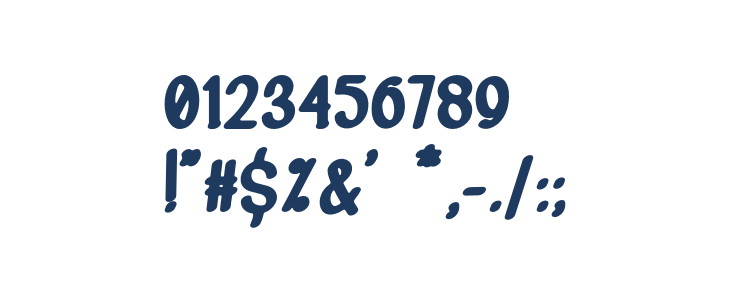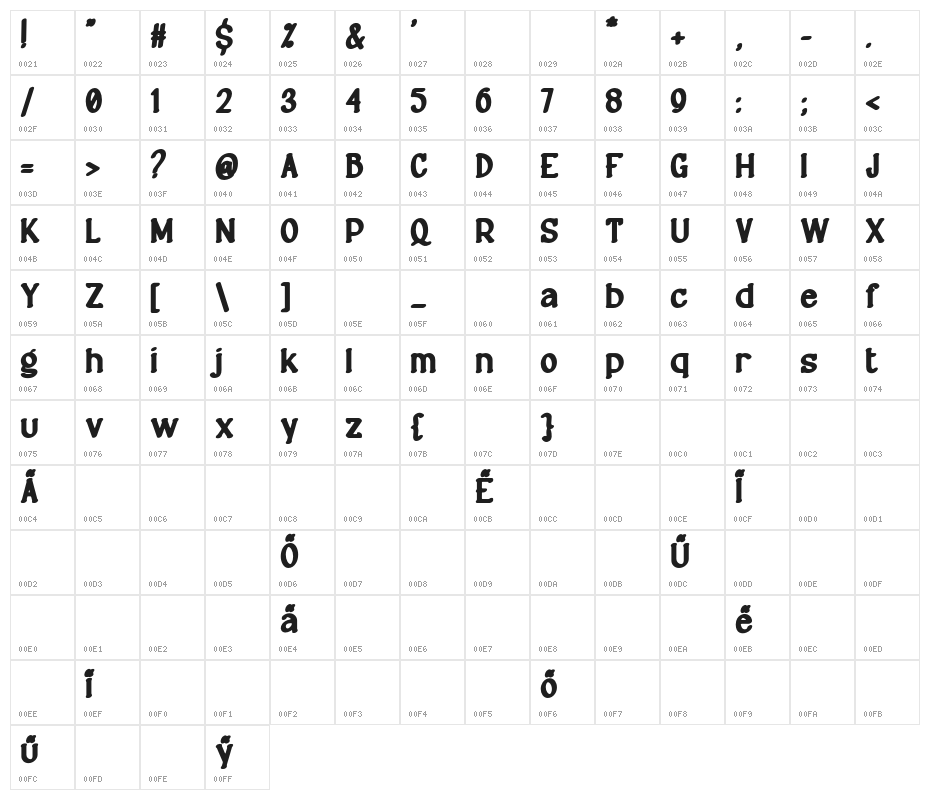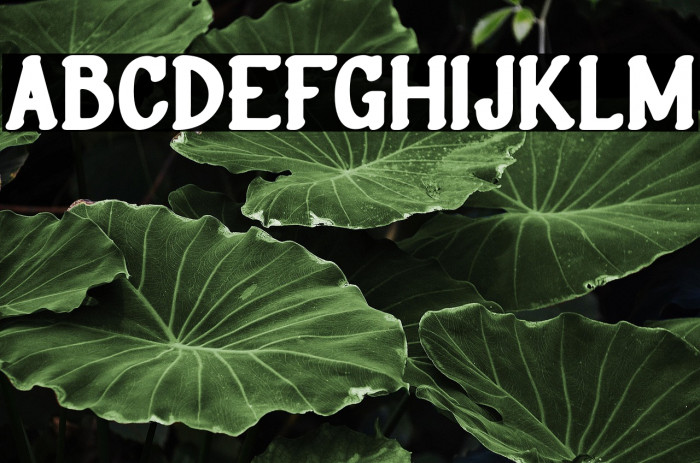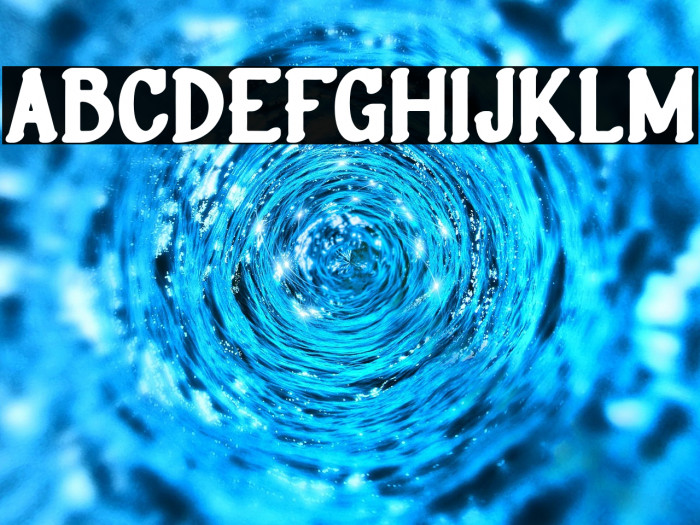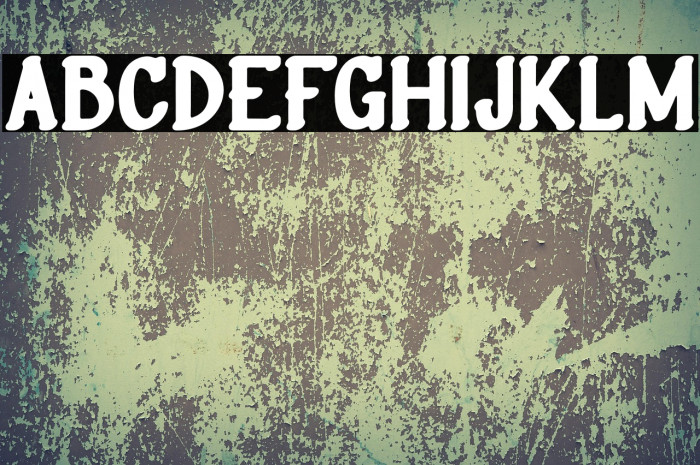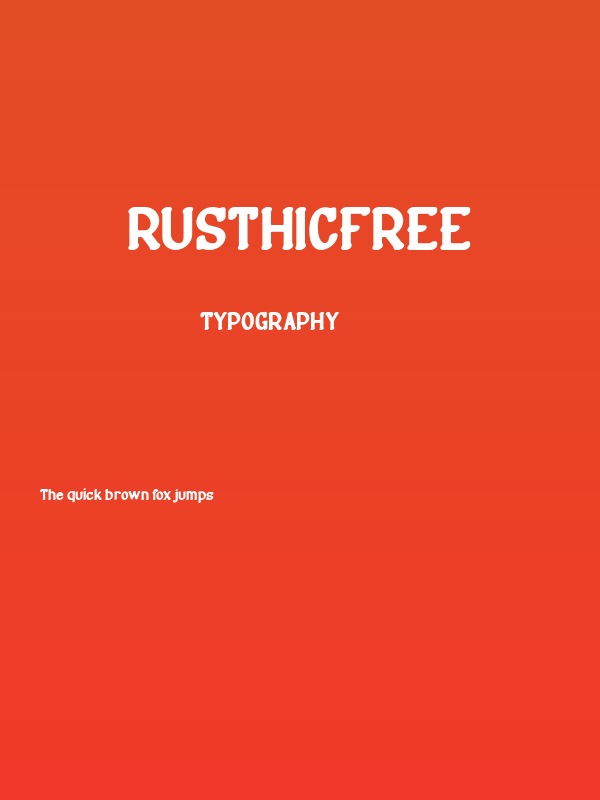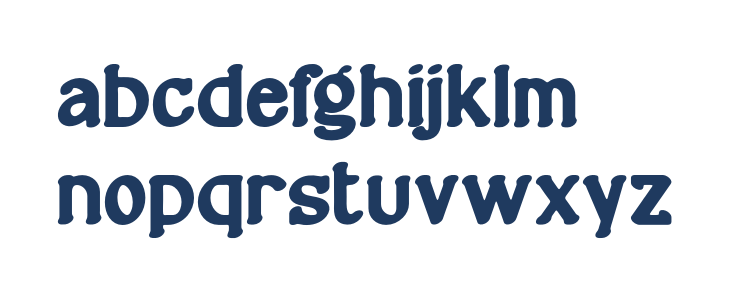
RusthicFREE Font
RusthicFREE Description
This font features a bold and rustic design, characterized by its thick, rounded strokes and slightly uneven edges that give it a handcrafted feel. The uppercase and lowercase letters maintain a consistent weight, providing a strong visual impact. The numerals and special characters follow the same design principles, ensuring uniformity across all glyphs. The font's playful yet robust style makes it suitable for projects that require a touch of personality and warmth. Its distinct appearance is both eye-catching and legible, making it versatile for various design applications.
| Overall Style | Rustic, Handcrafted |
| Proposed Projects | Ideal for branding, packaging, posters, and signage that require a rustic or handcrafted aesthetic. |